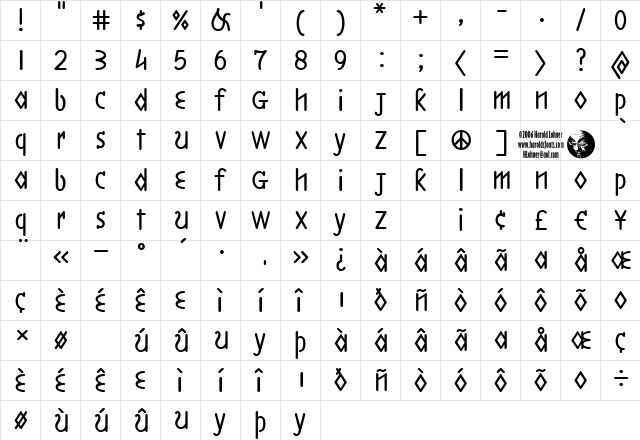
Boston LineAligned Regular
Design Context for Boston LineAligned Typeface
Boston LineAligned takes a measured approach to typography — its balanced proportions and neutral character make it a reliable workhorse for both digital and print work.